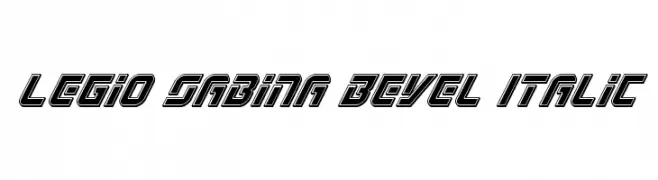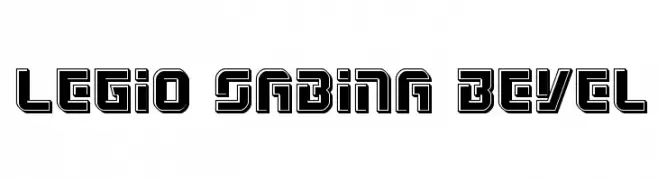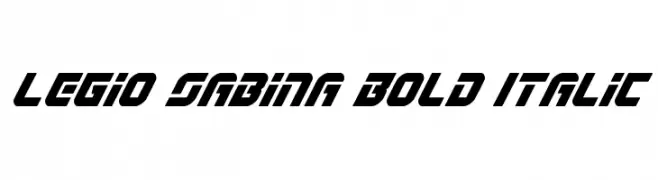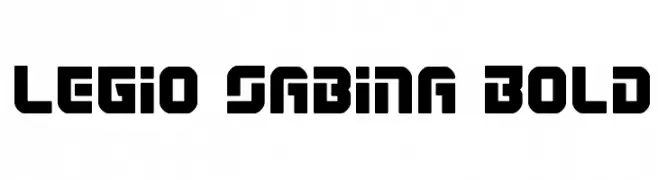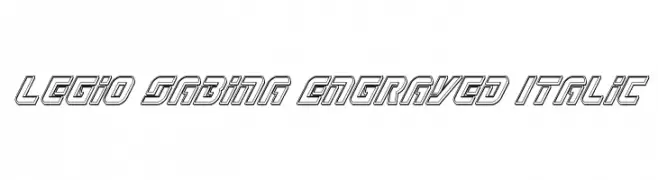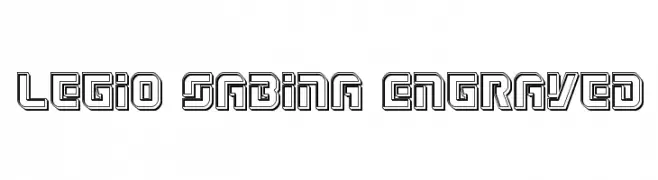
A bold, geometric font with a three-dimensional beveled edge.
A bold, italicized font with a beveled, three-dimensional style.
A bold, geometric typeface with strong, angular lines and a modern aesthetic.
A bold, italicized font with a modern, dynamic style and strong presence.
A bold, futuristic font with a chrome-like, layered design.
A bold, italicized font with a futuristic, chrome-like striped design.
A bold, geometric, and condensed font with a futuristic and industrial style.
A bold, italic, and condensed font with a modern, dynamic style.
A bold, geometric font with an engraved, three-dimensional appearance.
A bold, italic, engraved font with a three-dimensional outline effect.